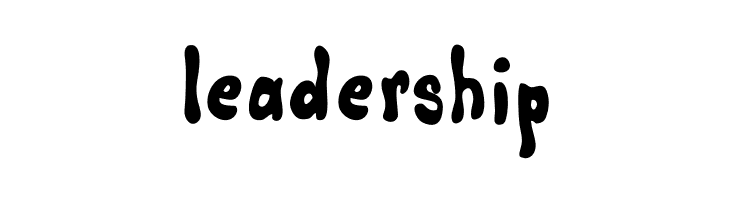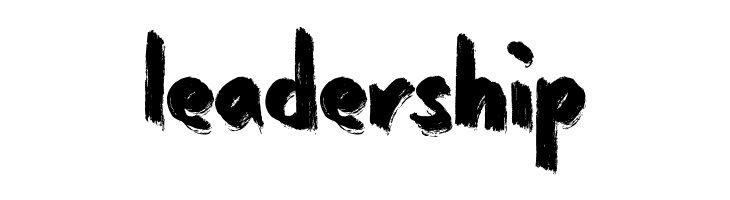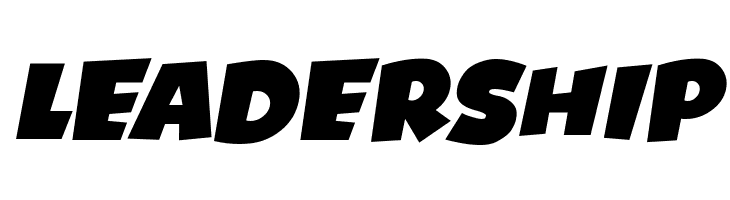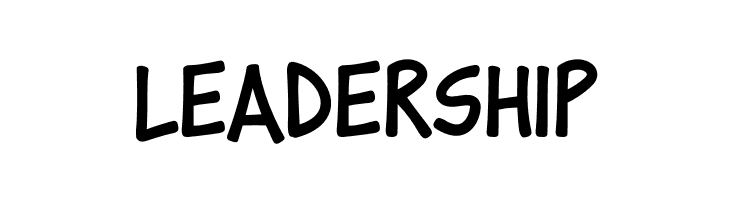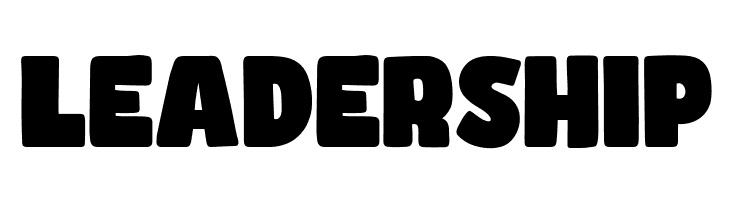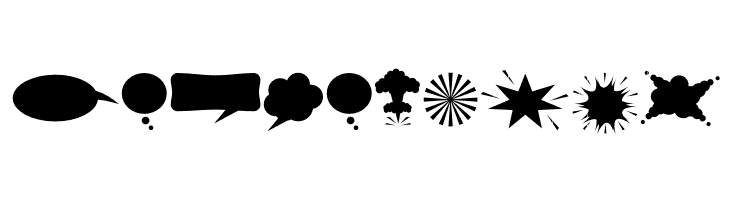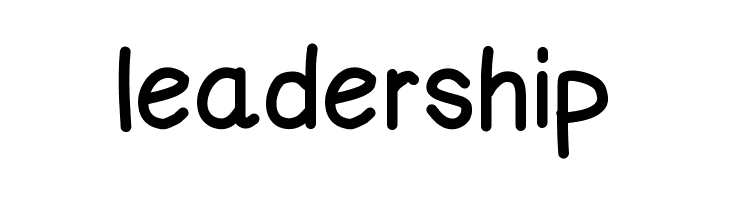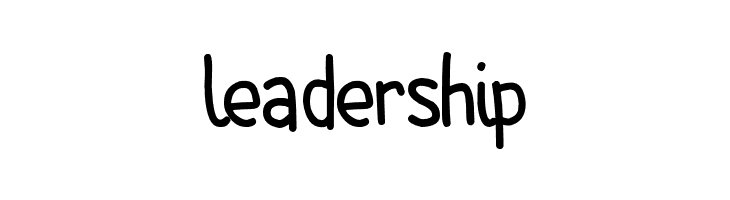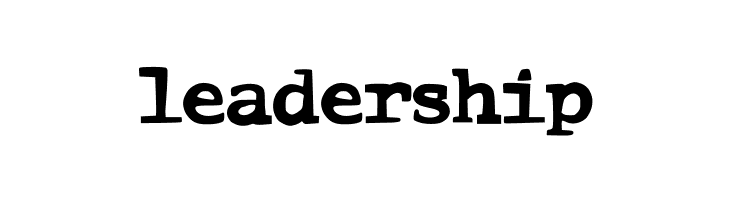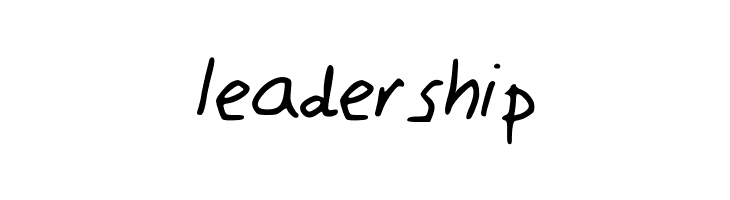
A bold, striped decorative font with a playful and dynamic style.
A playful, hand-drawn font with a whimsical and informal style.
A playful, handwritten font with a comic-like, informal style.
A playful, bold, and rounded font with a hand-drawn, comic book style.
A playful, hand-drawn font with bold, rounded characters and a whimsical style.
A playful, bubbly font with a cartoonish, hand-drawn style.
A playful, bold font with a bubbly, cartoonish style and rounded strokes.
A playful, hand-drawn font with rounded, informal characters.
A playful, comic-style font with numerals and symbols in circles.
A playful, bold, handwritten font with a comic-like style.
A series of cartoonish character illustrations with bold, high-contrast lines.
A playful, bold font with a cartoonish style and rounded edges.
A bold, brushstroke-style font with a textured, hand-painted appearance.
A playful, cartoon-style font with bold, rounded characters.
A playful, bold font with cartoonish, dynamic characters.
A bold, italicized font with a playful, comic-inspired style.
A bold, high-contrast collection of comic-style symbols for dynamic visual storytelling.
A playful, bold font with a comic-like, hand-drawn style.
A bold, shadowed font with a playful, comic book style.
A playful, handwritten-style font with flowing, cursive-like strokes.
A playful, hand-drawn font with rounded, bold characters and a casual feel.
A bold, playful font with a comic-inspired, hand-drawn style.
A playful, handwritten font with bold strokes and a casual, friendly appearance.
A bold, playful font with a comic book style and hand-drawn feel.
A bold, playful font with thick strokes and rounded edges, ideal for comic-style designs.
A bold, rounded, and playful font with a cartoonish style.
A bold, rounded, and playful font ideal for comic-style designs.
A playful, hand-drawn comic-style font with bold outlines and irregular shapes.
A bold, playful font with a comic book style and hand-drawn appearance.
A playful, bold outline font with a comic book style.
A bold, textured comic-inspired font with a playful, hand-drawn style.